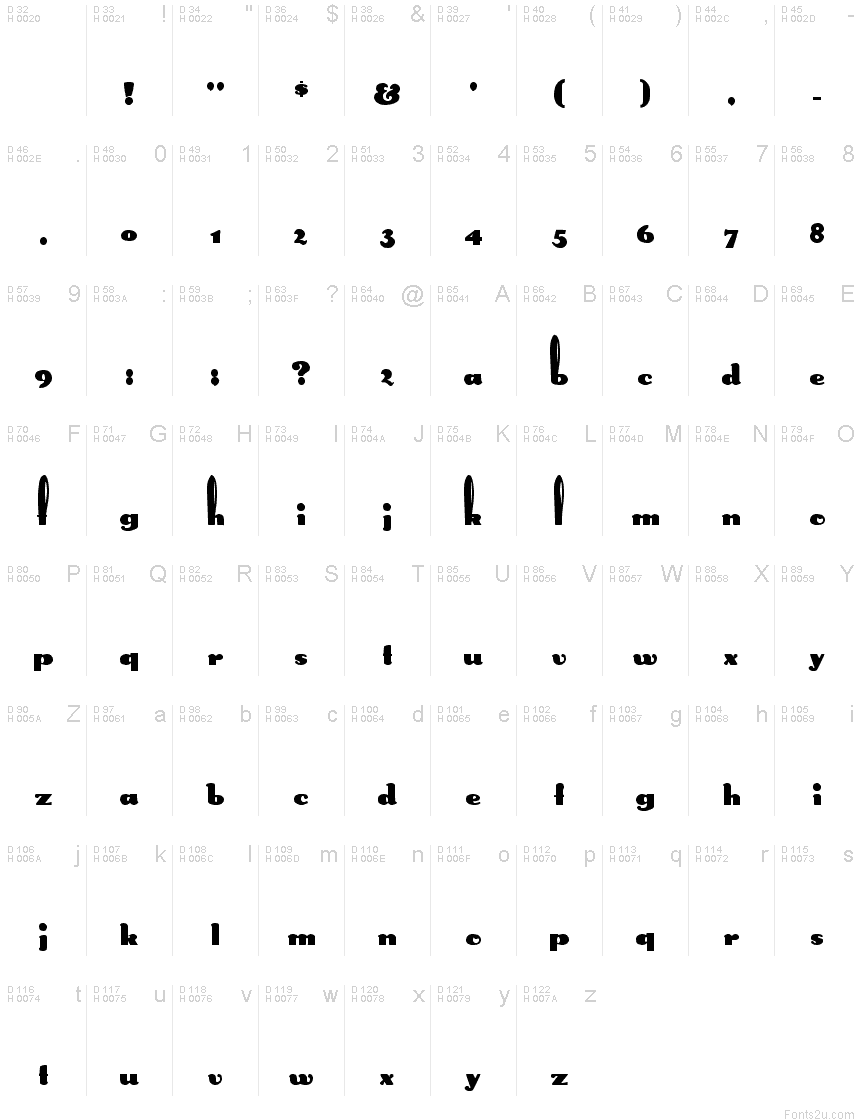
Rabbit Regular
Rabbit is a free comic display font from D. Rakowski of BunnyEars, with a bouncy, storybook attitude that feels playful rather than cute. The letters are heavy and rounded, but they keep little nubs and soft flares that make the alphabet look hand-drawn, almost like old comic lettering translated into bold black shapes.
It fits children’s book covers, comic title cards, party invitations, novelty packaging, and cheerful poster headlines where a free font with a chunky silhouette can do the talking fast. Because the forms are so compact and springy, Rabbit Regular also works nicely for short names, big initials, and friendly logo ideas.